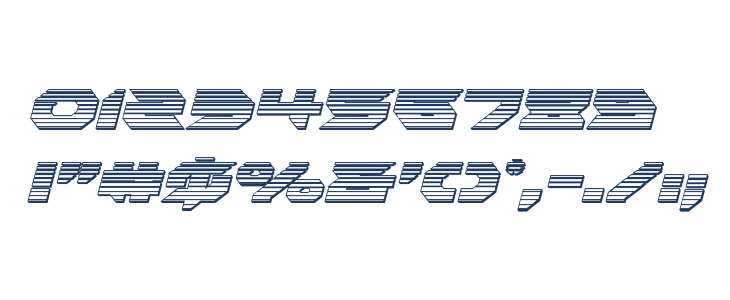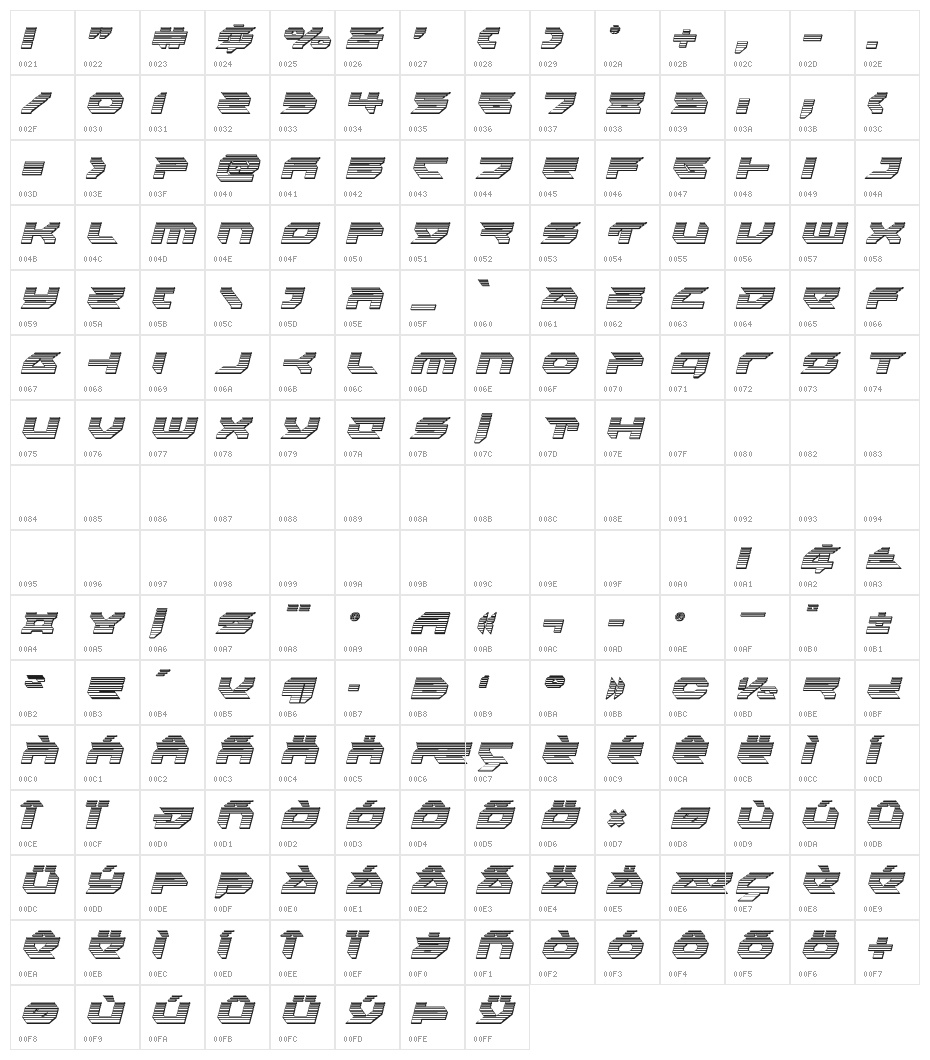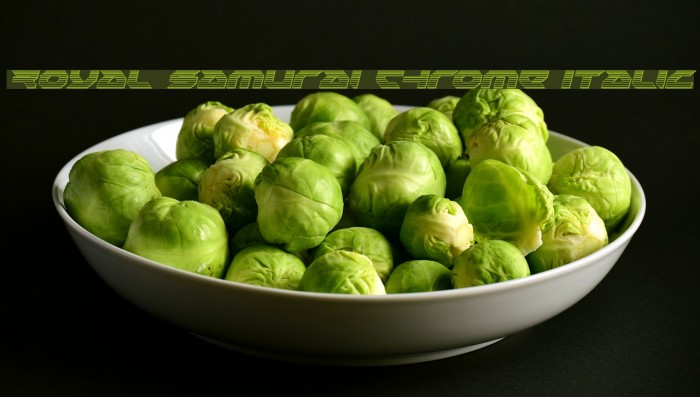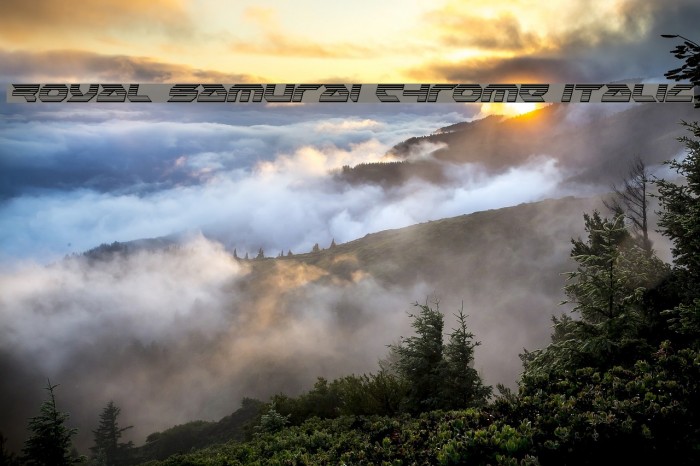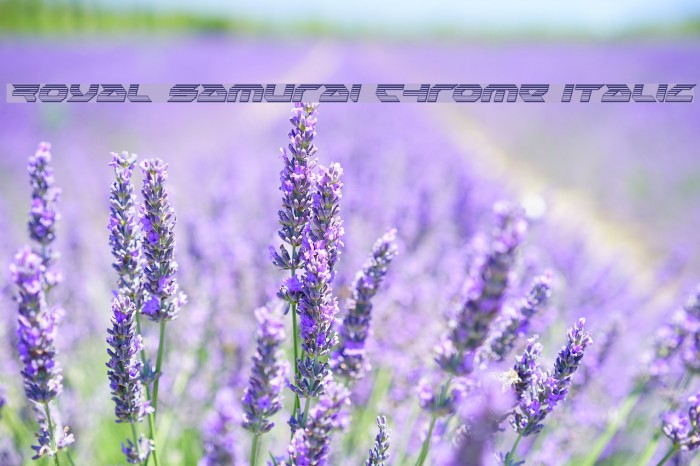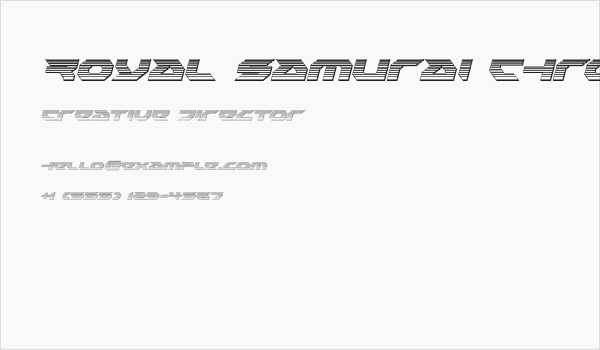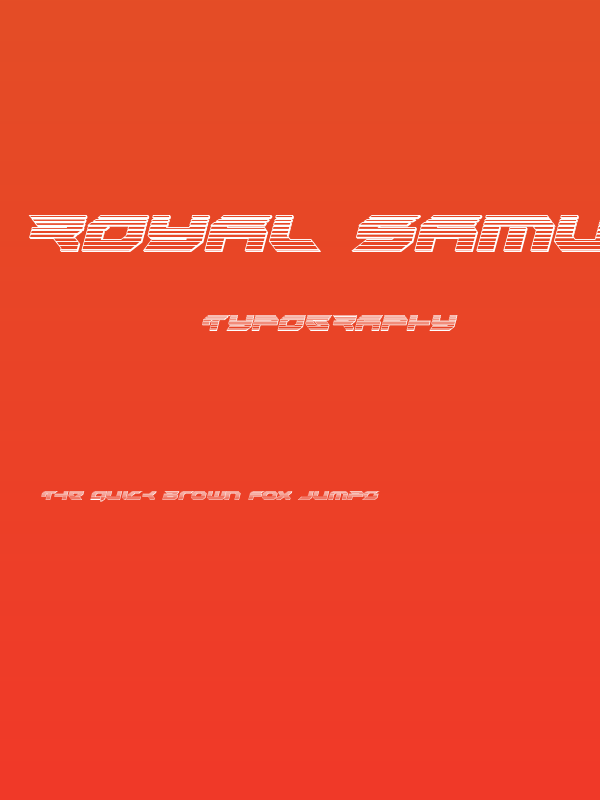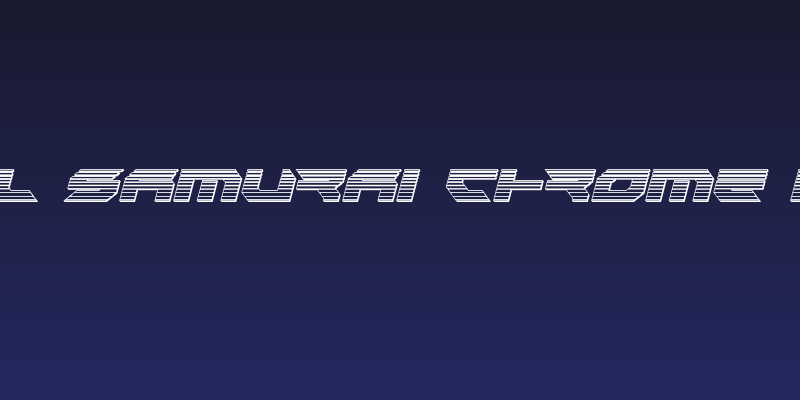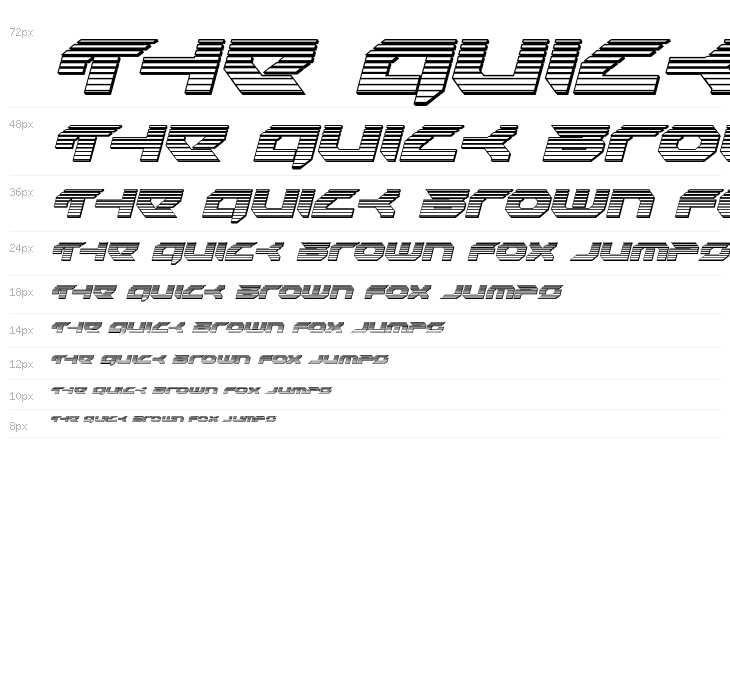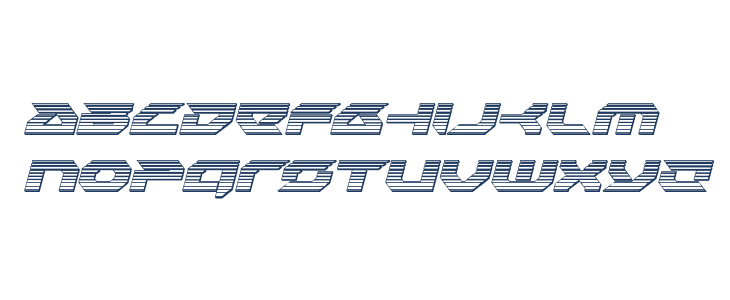
Royal Samurai Chrome Italic Font
Royal Samurai Chrome Italic Description
This font features a bold, futuristic design with a chrome-like appearance. The characters are constructed with multiple parallel lines, creating a layered effect that adds depth and dimension. The italic slant gives it a dynamic and forward-moving feel, reminiscent of speed and modern technology. The geometric shapes and sharp angles contribute to its high-tech aesthetic, making it suitable for projects that require a cutting-edge look. The font maintains consistent spacing between characters, ensuring readability while preserving its unique style.